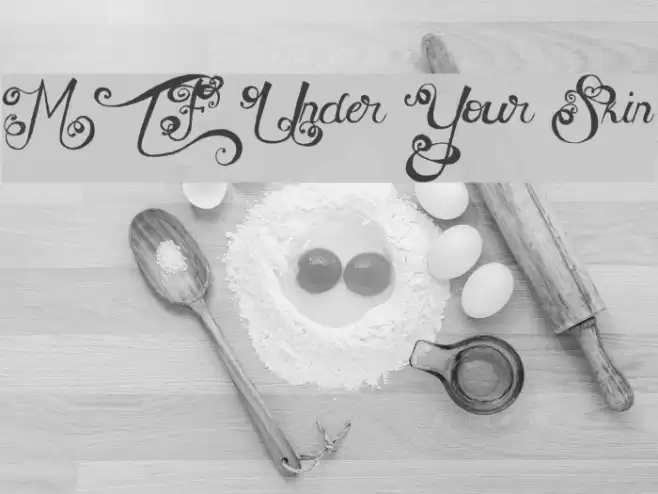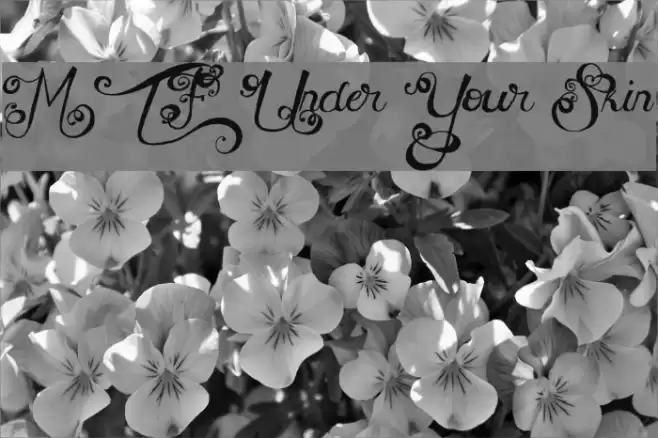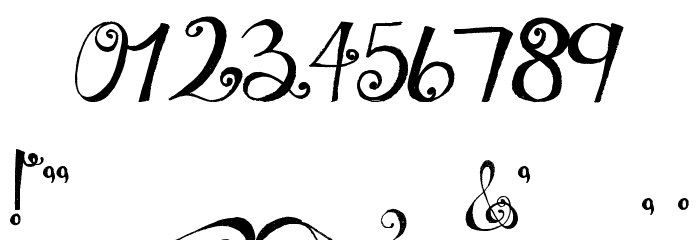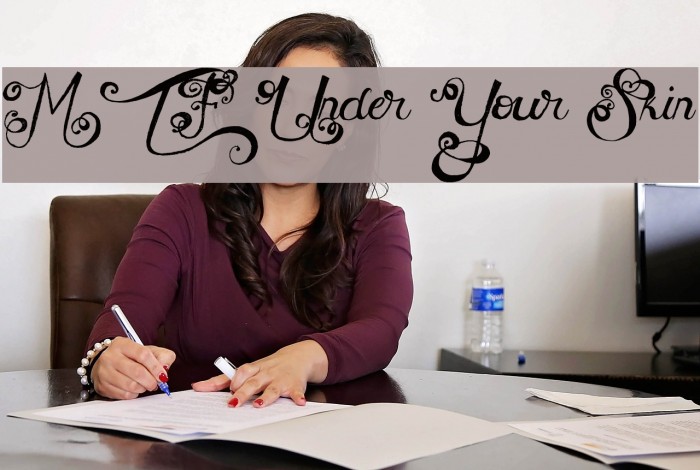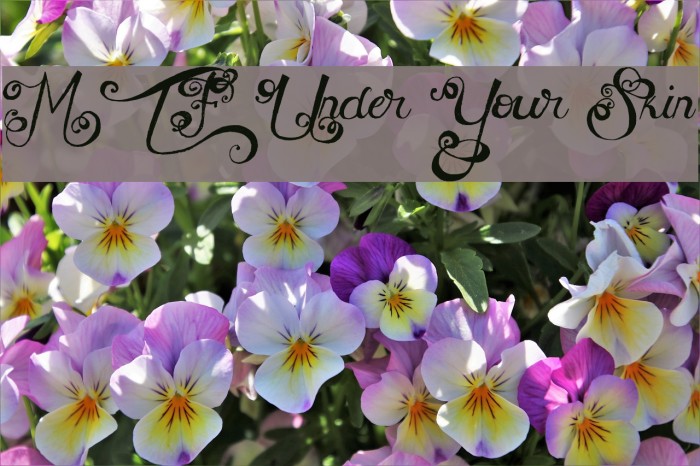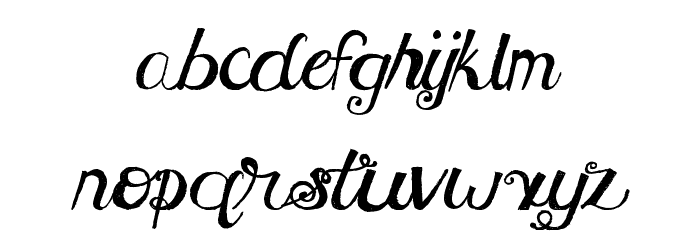
MTF Under Your Skin Font
MTF Under Your Skin Description
This font features an ornate and decorative style, characterized by intricate swirls and flourishes that embellish each letter. The uppercase letters are particularly elaborate, with loops and curls that give them a whimsical and artistic appearance. The lowercase letters maintain a more streamlined look but still incorporate subtle decorative elements. The numerals are consistent with the overall style, featuring similar embellishments. Special characters are uniquely styled, adding to the font's playful and creative aesthetic. This font is ideal for projects that require a touch of elegance and creativity.
An ornate and decorative font with intricate swirls and flourishes from Handwritten fonts.
- Proposed Projects: Ideal for wedding invitations, greeting cards, artistic posters, and branding that requires an elegant touch.